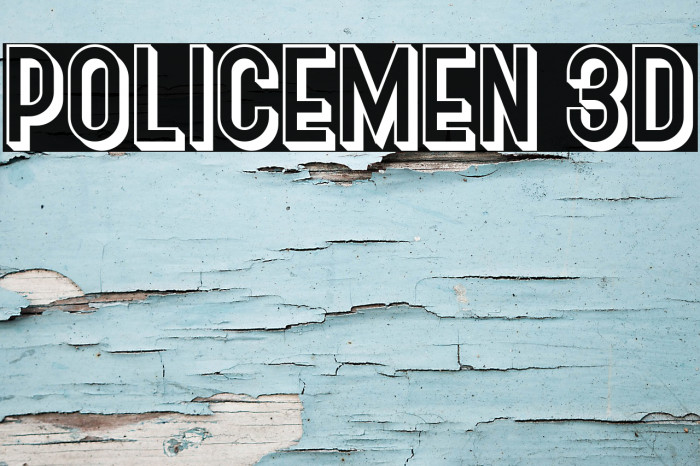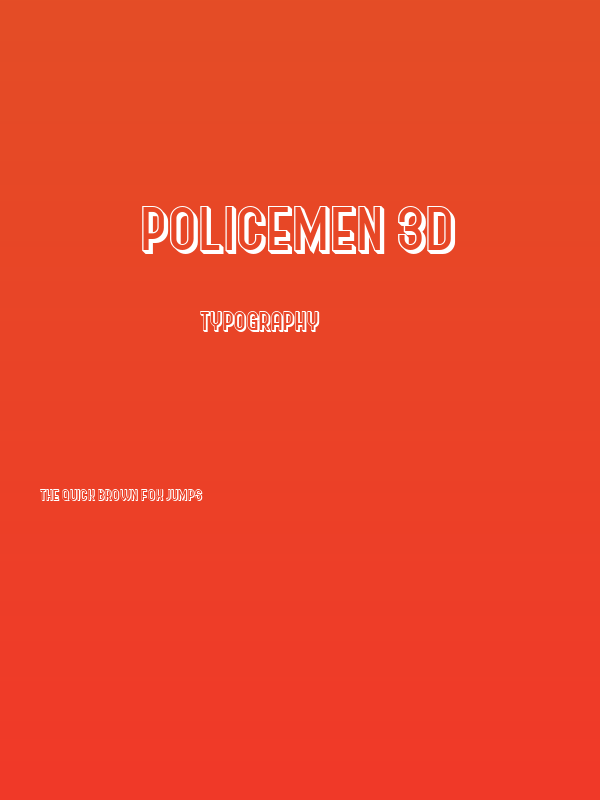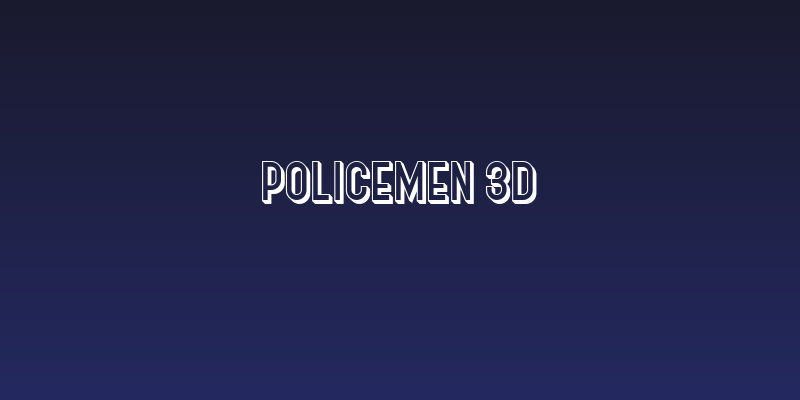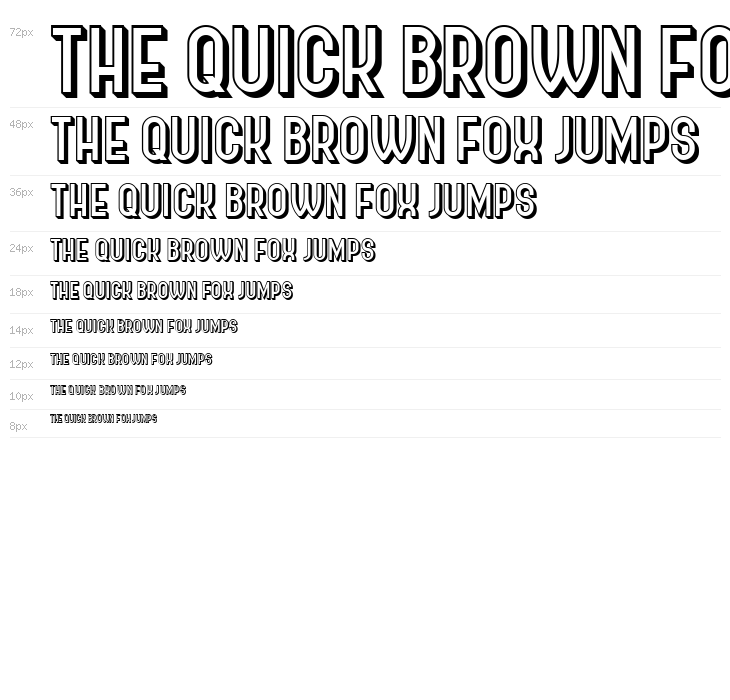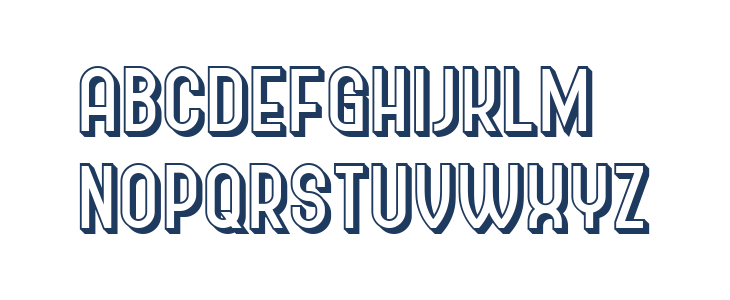
Policemen 3D Font
Policemen 3D Description
This font features a bold, three-dimensional style with a strong, geometric structure. Each character is outlined with a thick black border, giving it a striking and impactful appearance. The letters are uppercase and maintain a consistent height, enhancing readability. The numbers and special characters follow the same design, ensuring uniformity across all elements. The 3D effect is achieved through a shadow-like extension on the right side of each character, adding depth and a sense of movement. This font is ideal for creating attention-grabbing headlines or titles.